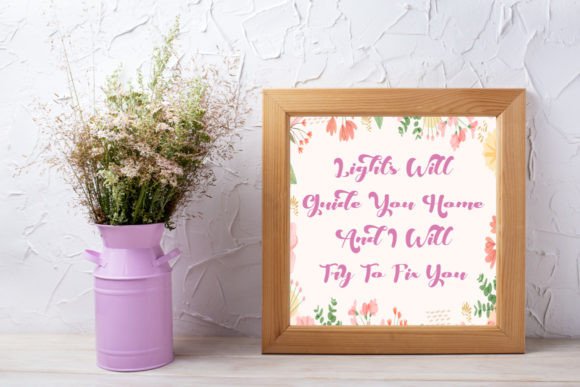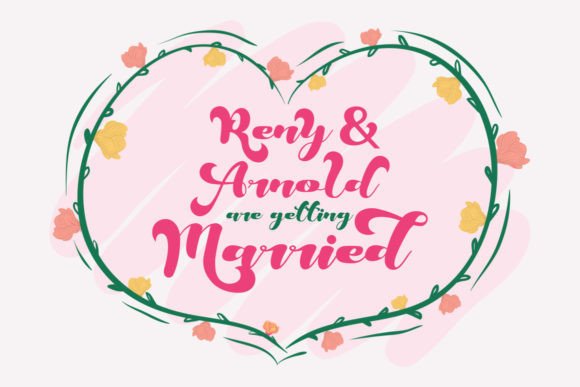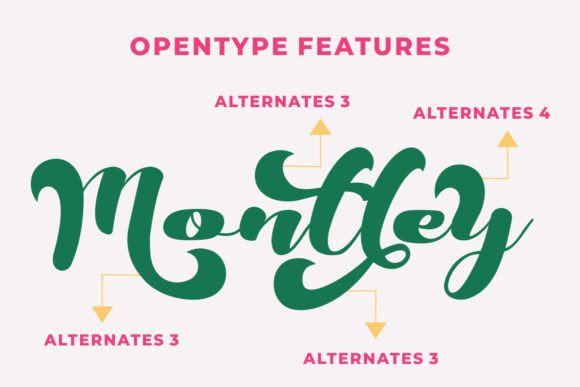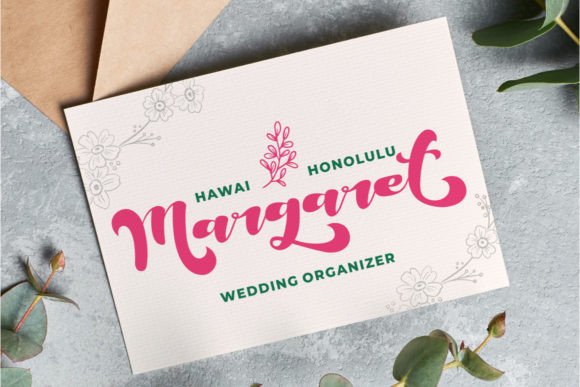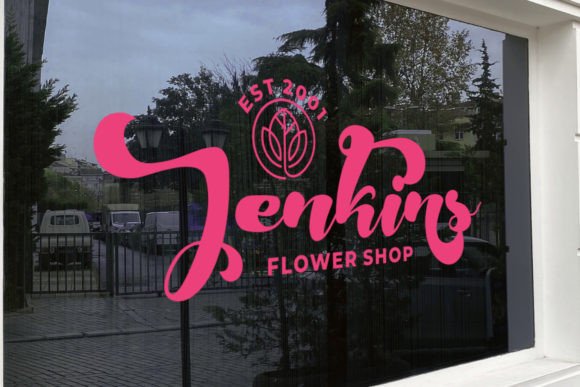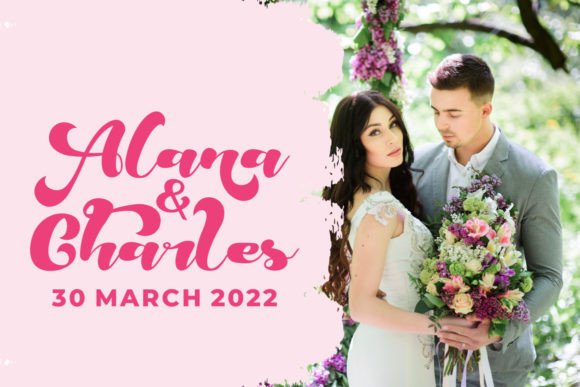
Introduction to Mellania Script Font
Have you ever been brainstorming ideas for a creative project, only to have the perfect font pop into your head at the most unexpected moment? For designers, those ‘aha’ moments are what make all the difference. And for those who love a touch of whimsy in their designs, the Mellania Script Font is about to become your new best friend.
This high-quality script font is a game-changer for any design project that requires a personalized touch. Whether you’re creating wedding invitations, thank you cards, or even logos, the Mellania Script Font’s bold yet cute aesthetic is sure to make your design stand out. As a valuable resource for designers, this free download is a must-have for any creative project that requires a little extra flair.
Key Features of Mellania Script Font
- High-quality, elegant script font design ideal for creative projects and design resources.
- Comes with a transparent background, allowing for easy integration into various design projects.
- Features a beautiful, handwritten style with subtle flourishes and connecting strokes, adding a touch of sophistication to any design.
- Perfect for use in wedding invitations, quotes, and other creative projects where a elegant, handwritten font is desired.
Honest Review: Mellania Script Font
As a designer, I’m always on the lookout for high-quality design resources to elevate my creative projects. Recently, I stumbled upon the Mellania Script Font, and I’m excited to share my honest review.
Here are some things that ✨ work well:
- Beautiful, elegant script font perfect for wedding invitations, branding, or any other creative project that needs a touch of sophistication.
- Transparent background, making it easy to use in various design contexts.
However, there are a few limitations ⚠️:
- Some users may find the font a bit too ornate or overused.
Overall, I’m impressed with the Mellania Script Font. It’s a great addition to any designer’s toolkit, and its free download makes it an excellent choice for personal or small-scale projects. With its elegant design and transparent background, it’s sure to elevate any creative project.
Tips for Getting the Most Out of Mellania Script Font
For the best results, use Mellania Script Font in conjunction with other elegant fonts to create a harmonious design. Experiment with different font sizes and colors to add visual interest to your design.
Mellania Script Font is perfect for designing wedding invitations, wedding websites, and other wedding-related materials. It’s also great for creating graphics and logos for beauty and fashion brands.